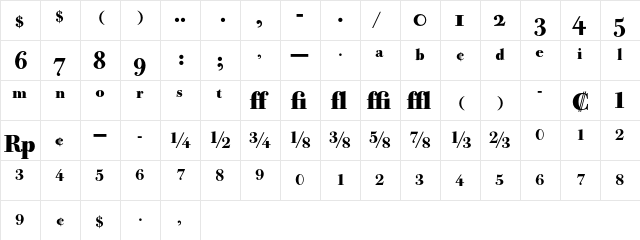
Bodoni Old Face BE Bold Expert
Design Context for Bodoni Old Face BE Typeface
Bodoni Old Face BE takes a measured approach to typography — its balanced proportions and neutral character make it a reliable workhorse for both digital and print work. Its bold stroke weight gives it real presence on the page.